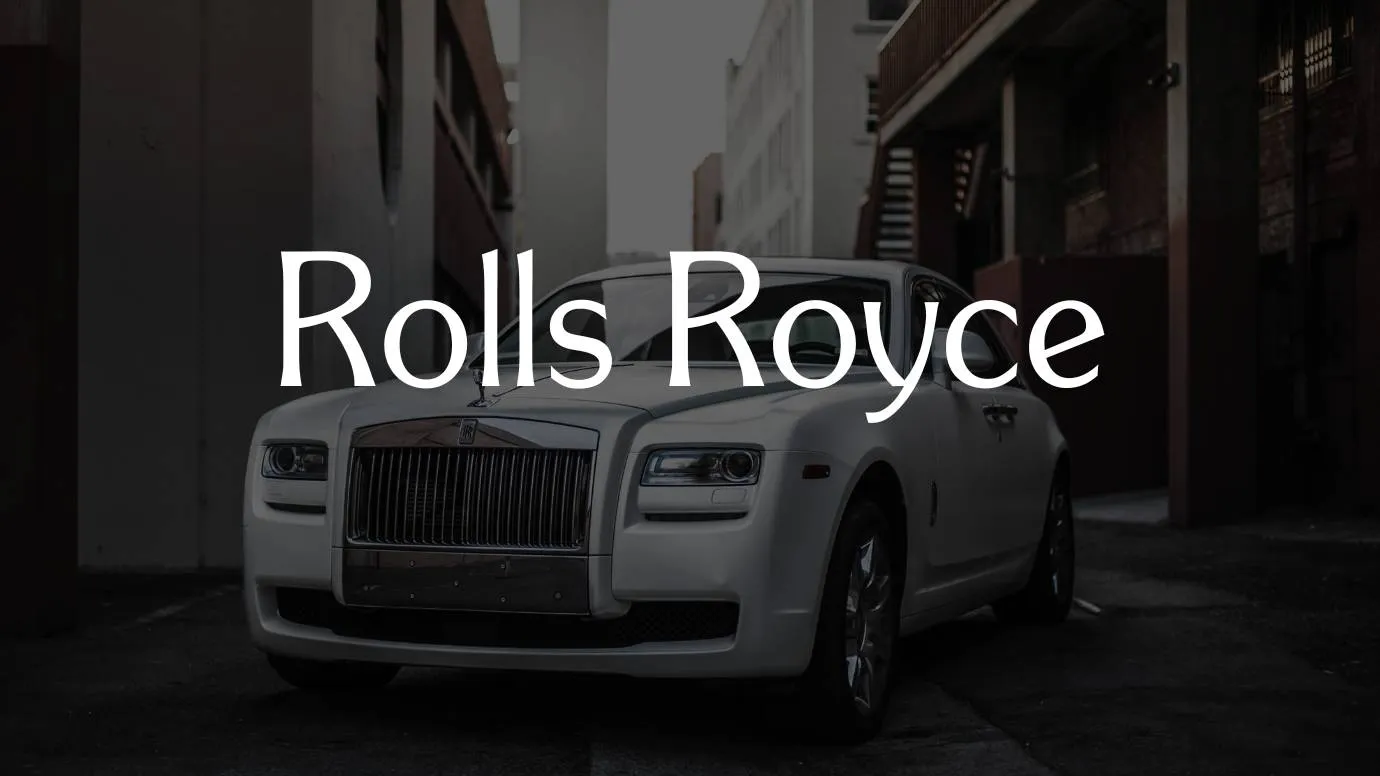
Rolls Royce Font Family is a very popular logo typeface. This stylish texture was designed for the logo of a famous car company. Rolls Royce is a popular British brand car-making company.
This classic texture has a lot of different advanced features. Carol Twombly & Robert Slimbach are the wise manufacturers who took charge of the creation of this typography. This typeface falls in the category of the sans serif family of fonts.
TypeSans Serif
DesignerCarol Twombly & Robert Slimbach.